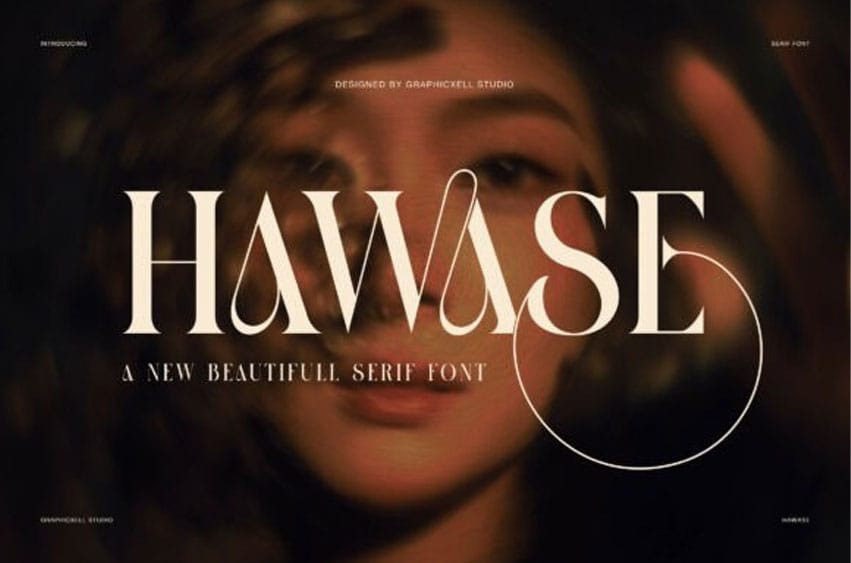
Hawase Font is an elegant serif font with a bold fashion mood and a soft artistic flow. It mixes sharp serif forms with long decorative curves, so the result feels refined, dramatic, and full of character. At first glance, the font looks luxurious. However, it also feels modern and expressive, which makes it stand out in many creative layouts.
The letterforms are tall, clean, and high contrast. In addition, several characters include long looping strokes that give each word a custom look. Because of that, Hawase feels more than simple. It feels stylish, memorable, and made for strong visual impact.